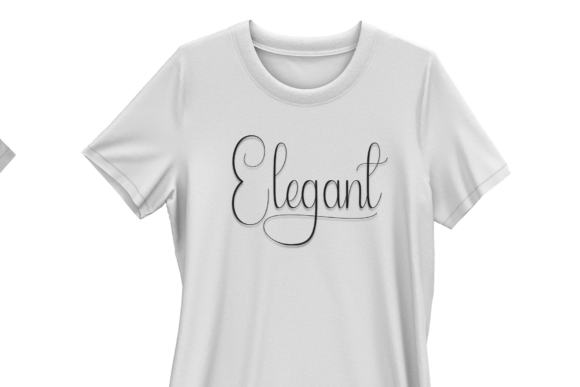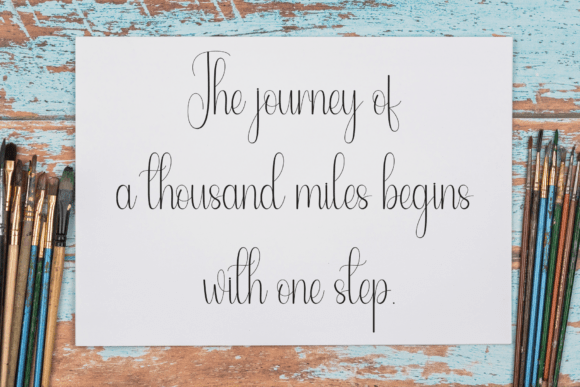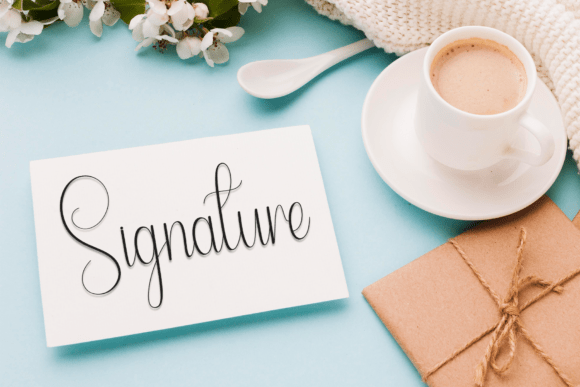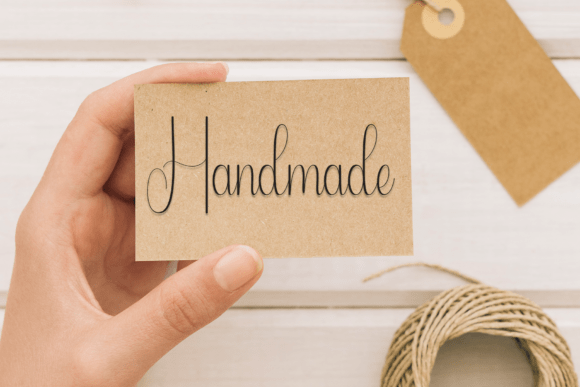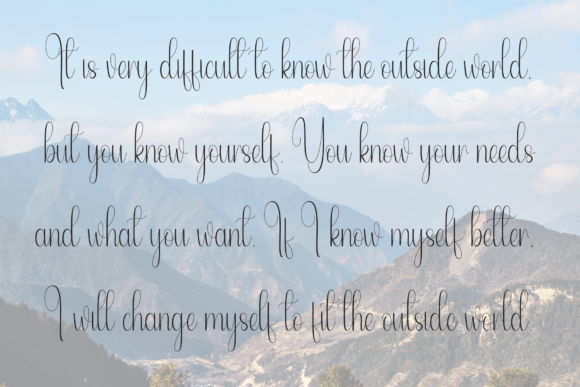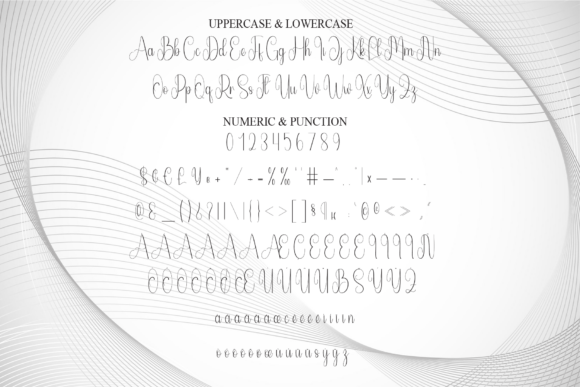
Introducing Everyone Font: The Ultimate Handwritten Script Font for Modern Design
In the world of typography, handwritten script fonts have always been a popular choice for designers looking to add a personal touch to their projects. One such font that has been making waves in the design community is Everyone Font, a stylish handwritten script font that seamlessly blends modern elegance with a playful touch.
What Makes Everyone Font Stand Out?
Everyone Font is a unique typeface that boasts fluid strokes and charming curves, giving it a distinctive and eye-catching appearance. Its modern elegance makes it perfect for a wide range of design applications, from logos and packaging to invitations and social media graphics. The font’s playful touch adds a creative and whimsical feel to any project, making it ideal for designers looking to add a personal touch to their work.
Key Features of Everyone Font
- Fluid Strokes: Everyone Font features fluid strokes that give it a natural, handwritten feel. The strokes are smooth and flowing, making the font perfect for designs that require a personal touch.
- Charming Curves: The font’s charming curves add a touch of elegance and sophistication to any design. The curves are carefully crafted to create a sense of movement and fluidity.
- Modern Elegance: Everyone Font has a modern and sleek appearance that makes it perfect for contemporary designs. The font’s elegance is balanced by its playful touch, making it versatile and easy to use.
- Playful Touch: The font’s playful touch adds a creative and whimsical feel to any project. This makes it ideal for designers looking to add a personal touch to their work.
Use Cases for Everyone Font
Everyone Font is a versatile typeface that can be used in a wide range of design applications. Here are some of the most popular use cases for the font:
- Logos: Everyone Font is perfect for creating unique and memorable logos. Its modern elegance and playful touch make it ideal for branding and identity designs.
- Packaging: The font’s charming curves and fluid strokes make it perfect for packaging designs. It adds a personal touch to any product and makes it stand out on store shelves.
- Invitations: Everyone Font is a popular choice for invitations, including wedding invitations, birthday invitations, and other special occasion invitations. Its elegance and sophistication make it perfect for formal events.
- Social Media Graphics: The font’s playful touch and modern elegance make it perfect for social media graphics, including Facebook posts, Instagram stories, and Twitter headers.
Benefits of Using Everyone Font
There are several benefits to using Everyone Font in your designs. Here are some of the most significant advantages:
- Unique and Memorable: Everyone Font is a unique and memorable typeface that can help your designs stand out from the crowd.
- Versatile: The font is versatile and can be used in a wide range of design applications.
- Easy to Read: Everyone Font is easy to read, even at small sizes. This makes it perfect for designs that require a lot of text.
- Customizable: The font is highly customizable, allowing you to adjust the size, color, and style to fit your design needs.
Everyone Font is a stylish handwritten script font that blends modern elegance with a playful touch. Its fluid strokes and charming curves bring a personal feel to any design, making it perfect for logos, packaging, invitations, and social media graphics. With its versatility, ease of use, and unique appearance, Everyone Font is a must-have for any designer looking to add a personal touch to their work.